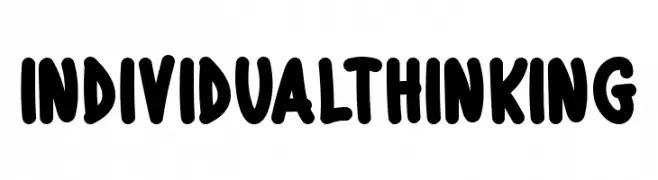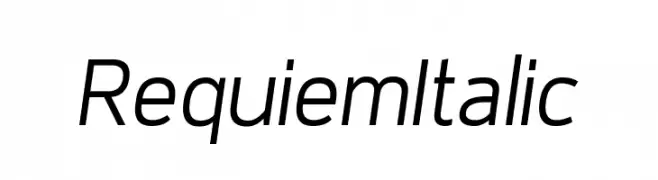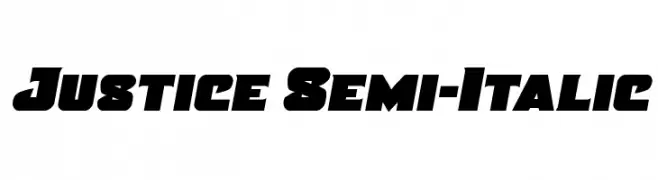
A bold, playful font with rounded, hand-drawn characters.
A modern, geometric font with clean lines and a futuristic style.
A bold, jagged font with a distressed, scratch-like appearance.
A bold, distressed font with a rugged, textured appearance.
A gothic, medieval-inspired font with bold, thorn-like embellishments.
A modern italic font with sleek, consistent strokes and elegant slant.
A bold, semi-italic font with angular cuts and a dynamic, modern style.